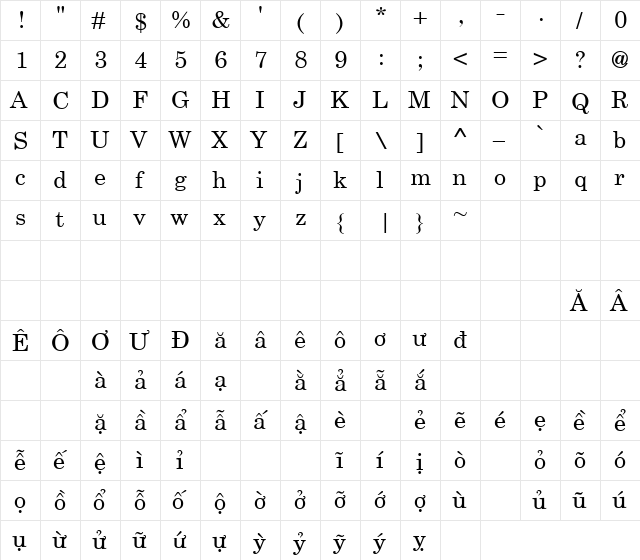
.VnCentury Schoolbook Regular Font Preview
.VnCentury Schoolbook Regular
Design Context for .VnCentury Schoolbook Typeface
.VnCentury Schoolbook offers clean, dependable letterforms without strong stylistic allegiance, making it a practical choice for designers who need flexibility.